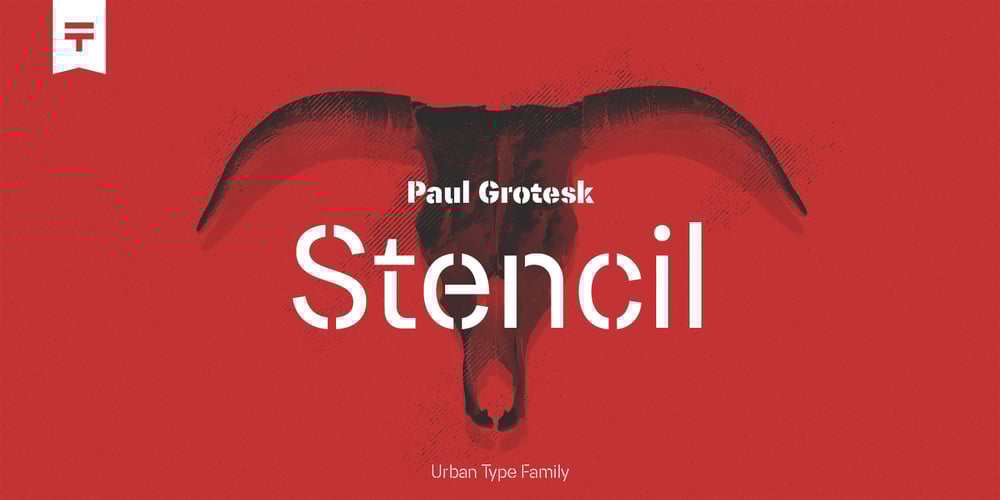
Paul Grotesk Stencil Font Family was designed by Lukas Bischoff, Fargus Meiser and published by artill. Paul Grotesk Stencil contains 8 styles and family package options. Paul Grotesk Stencil is a new Version of the modern, clean, minimalist grotesque typeface Paul Grotesk, with delicious detail. Created and published in collaboration by Fargus Meiser and Lukas Bischoff. It comes in 8 stylish weights and 3 are free to try. Designed with powerful opentype features in mind. Each weight includes extended language support, fractions, arrows, special numbers and more. It fits perfect for graphic design, editorial, corporate and any display use. Also check the webfont to create a nice responsive interface design!